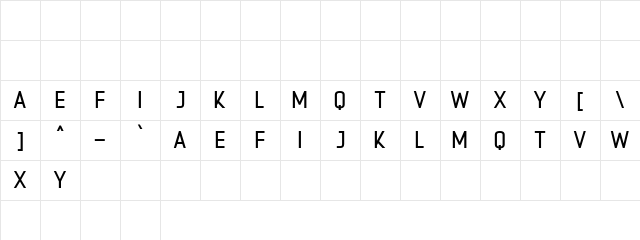
Escopedia Regular
Foundry: NanDesign Foundry
Designer: Frada Nanda
Design Context for Escopedia
Escopedia is a composed and adaptable typeface that performs quietly and consistently across a wide range of design contexts.